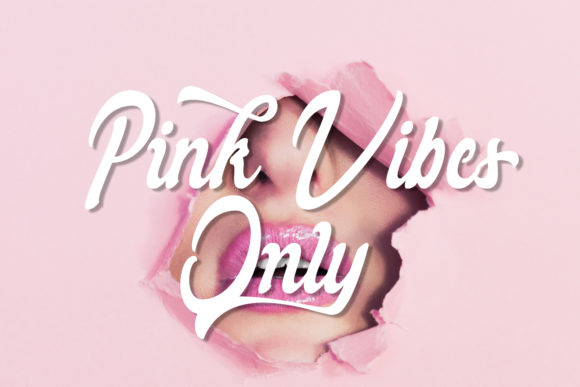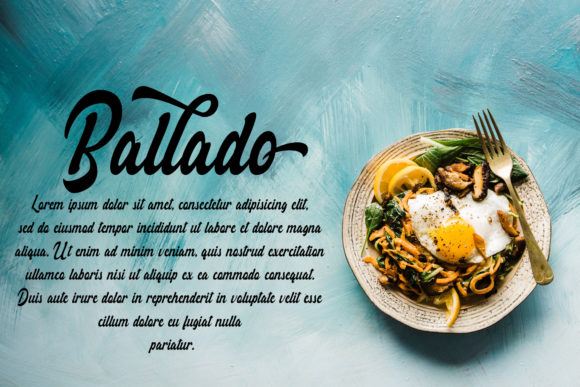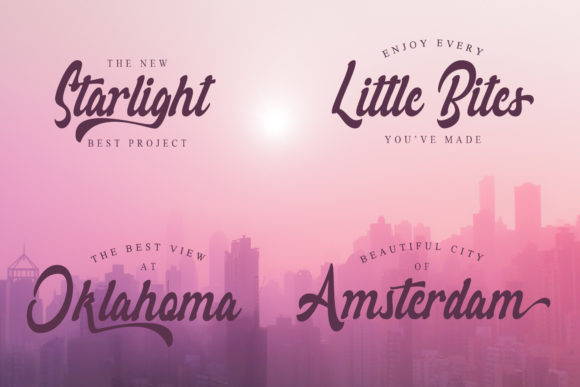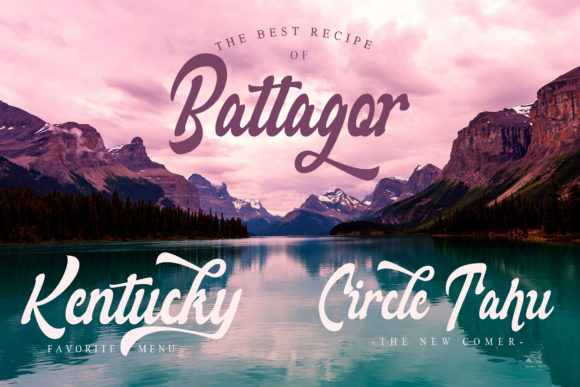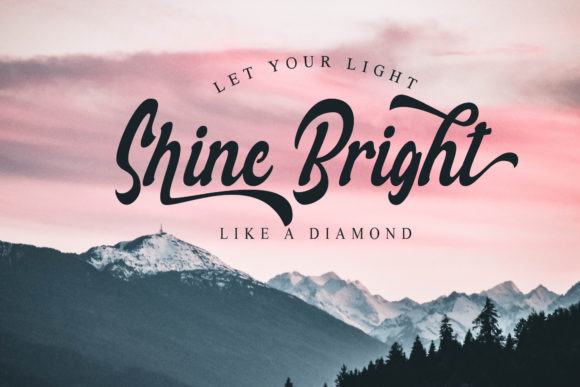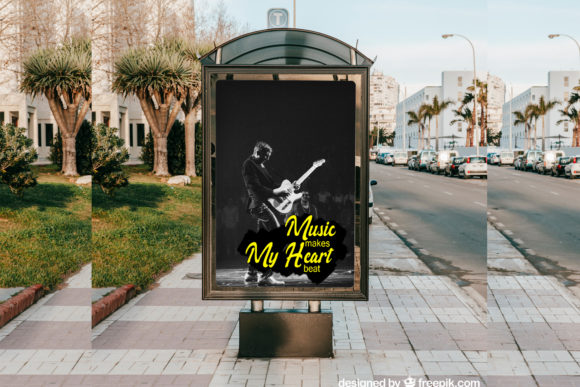
Rollade Ballado Font – Free Download
Introduction to Rollade Ballado Font
Rollade Ballado is a hand script font.
It features gorgeous swashes and ligatures that make this script incredibly versatile Whether youโre looking for fonts for Instagram or calligraphy scripts for DIY projects, Rollade Ballado will turn any creative idea into a true piece of art.
Key Features of Rollade Ballado Font
Why Choose Rollade Ballado Font?
Rollade Ballado Font offers exceptional quality and versatility, making it a valuable addition to your design toolkit. Whether you’re creating for personal projects or commercial use, Rollade Ballado Font delivers professional results.